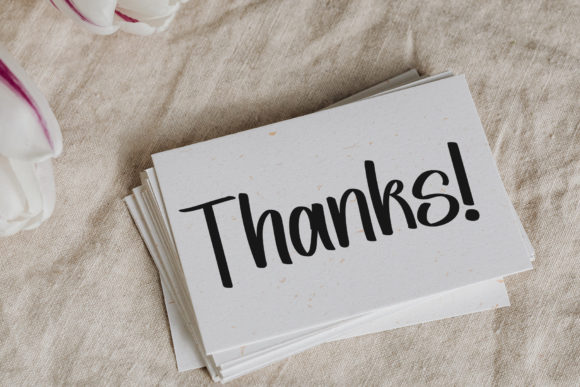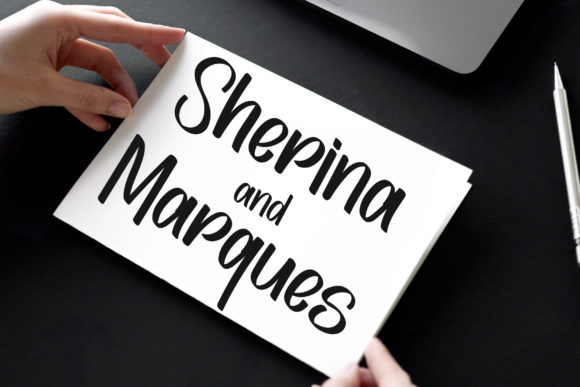
Smoothing Font
db-ku.com - Script & Handwritten -- Smoothing is a simple, friendly and cute handwritten font. This adaptable font will look great on a variety of design ideas. It will add a fun and adaptable touch to each of your projects!